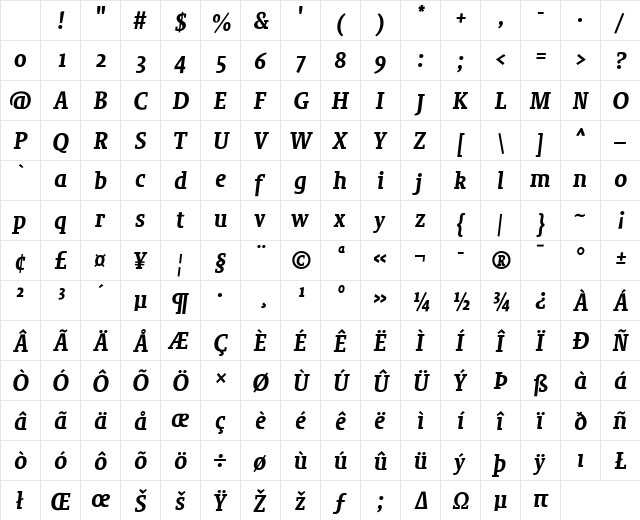
Complete Sheriff Bold glyph index. Displaying only characters natively supported by Sheriff Bold font.
Sheriff is a composed and adaptable typeface that performs quietly and consistently across a wide range of design contexts. Its bold stroke weight gives it real presence on the page.
Who designed the Sheriff Bold font?